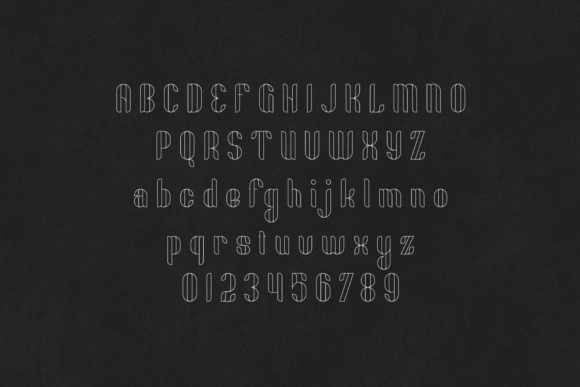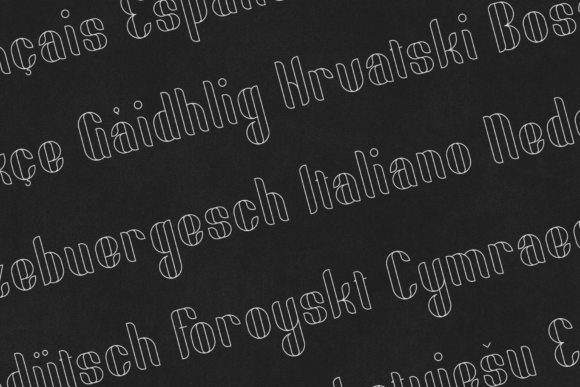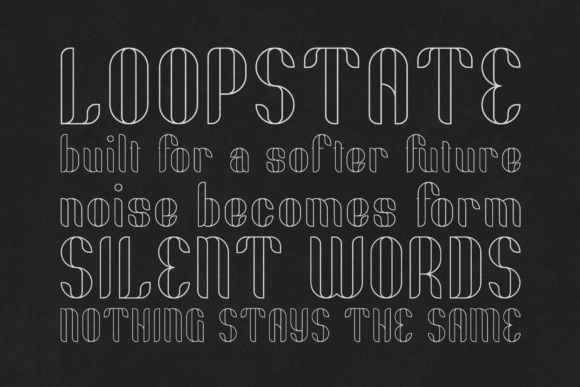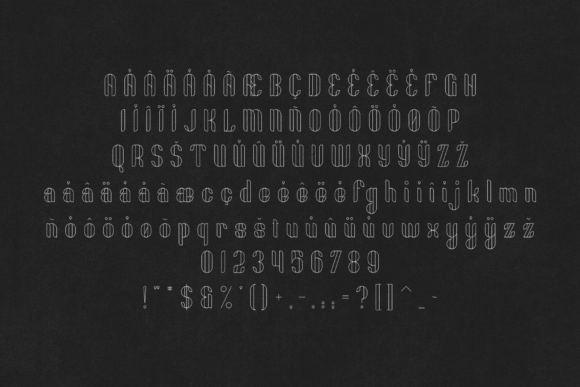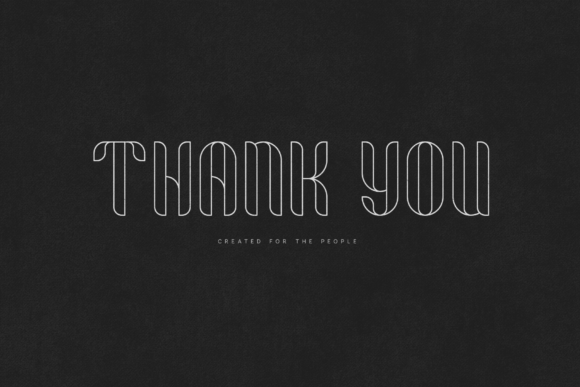
Introduction to Fika Outline Font
FIKA – Outline Edition is a refined Art Deco inspired display typeface designed for high-end branding and editorial impact.
With its vertical elegance, sculpted curves, and double-line outline construction, FIKA brings timeless glamour into modern design systems It feels cinematic.